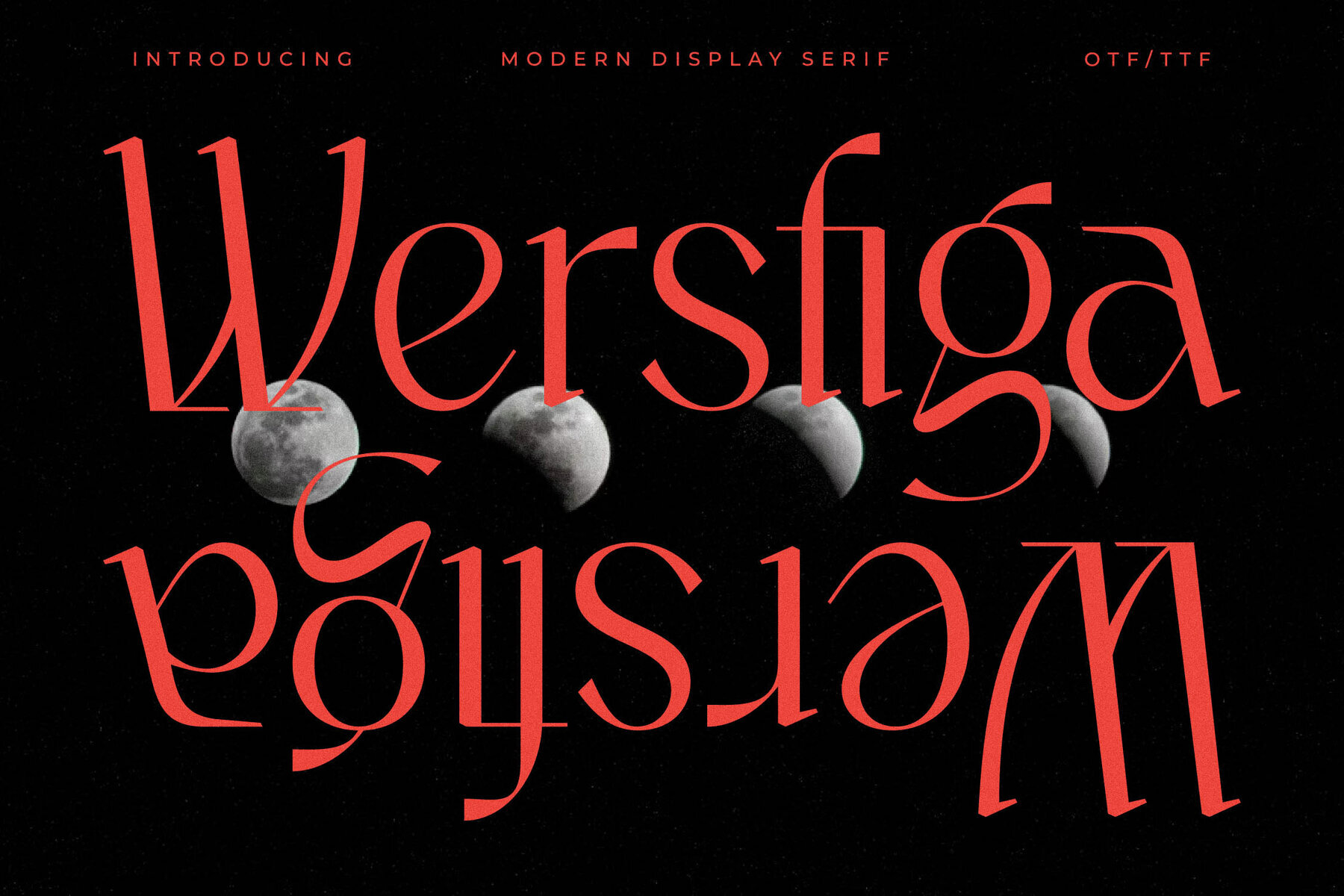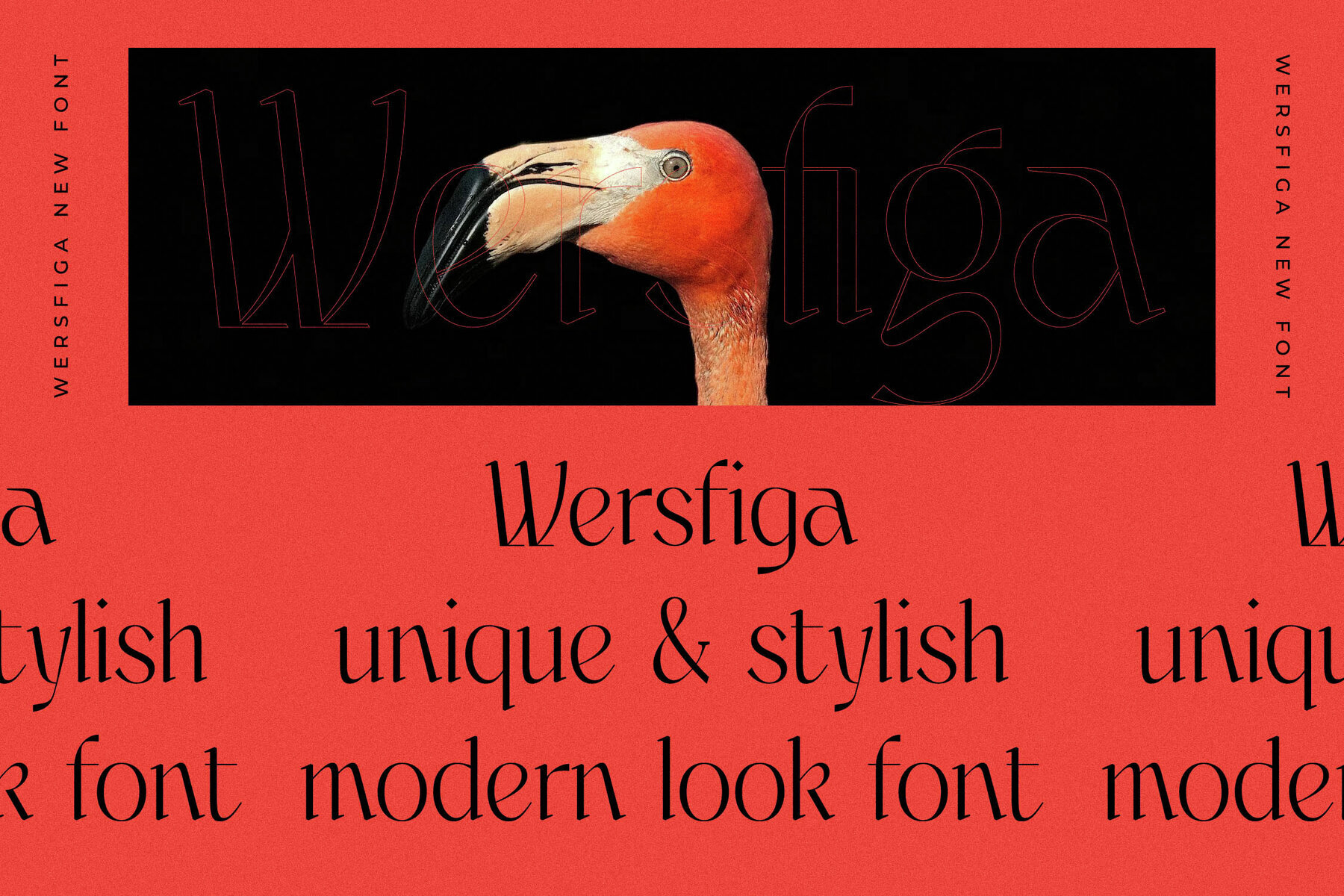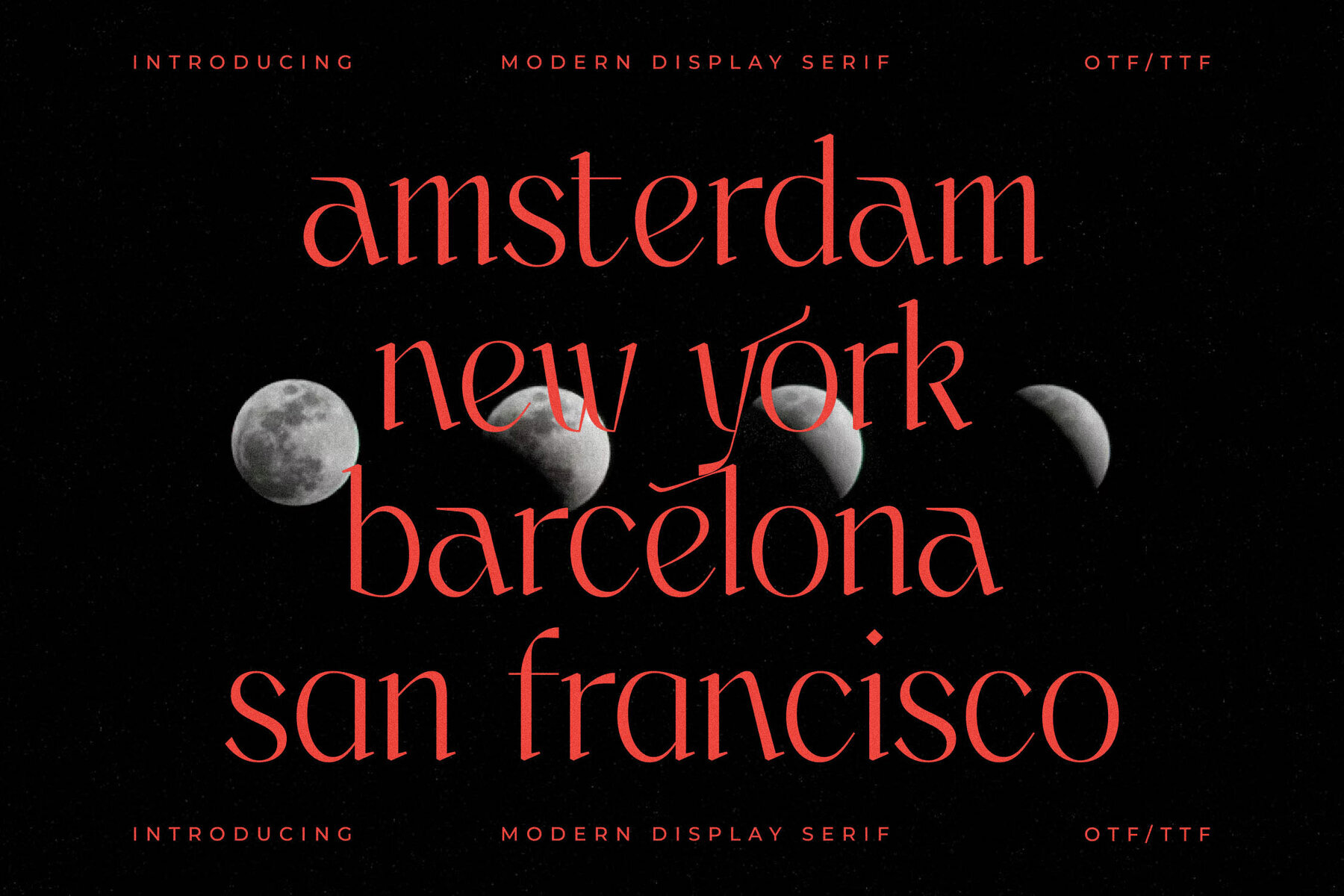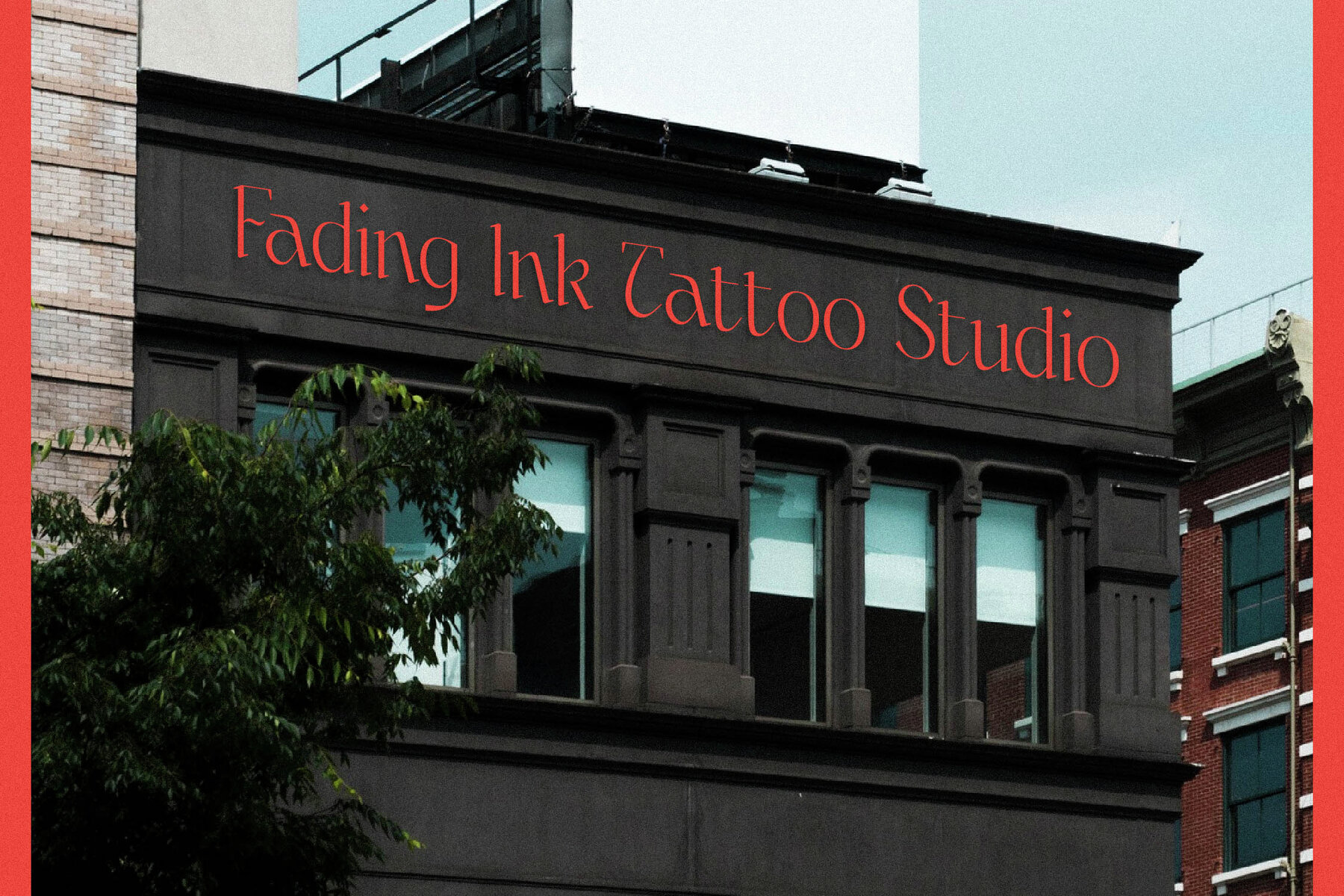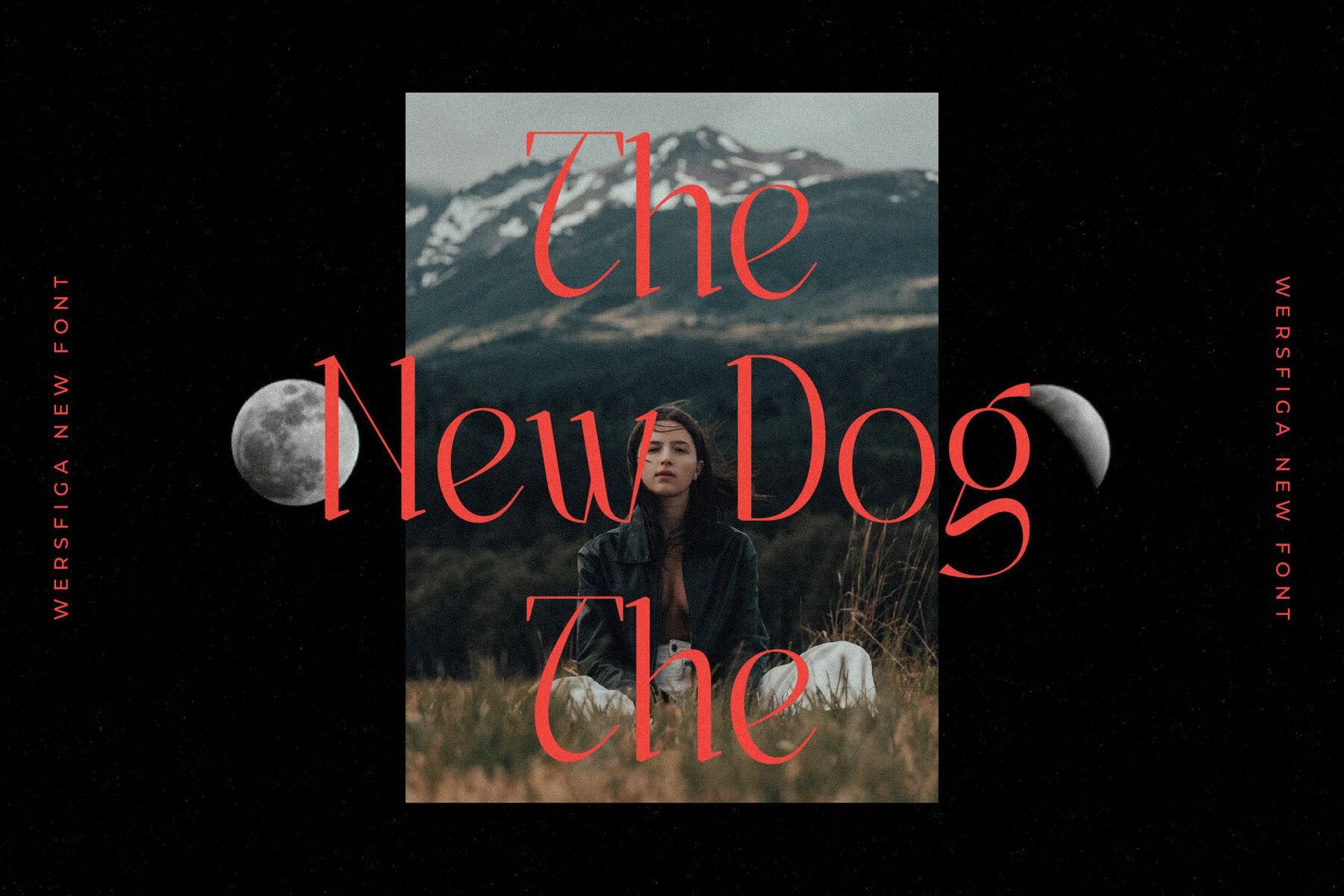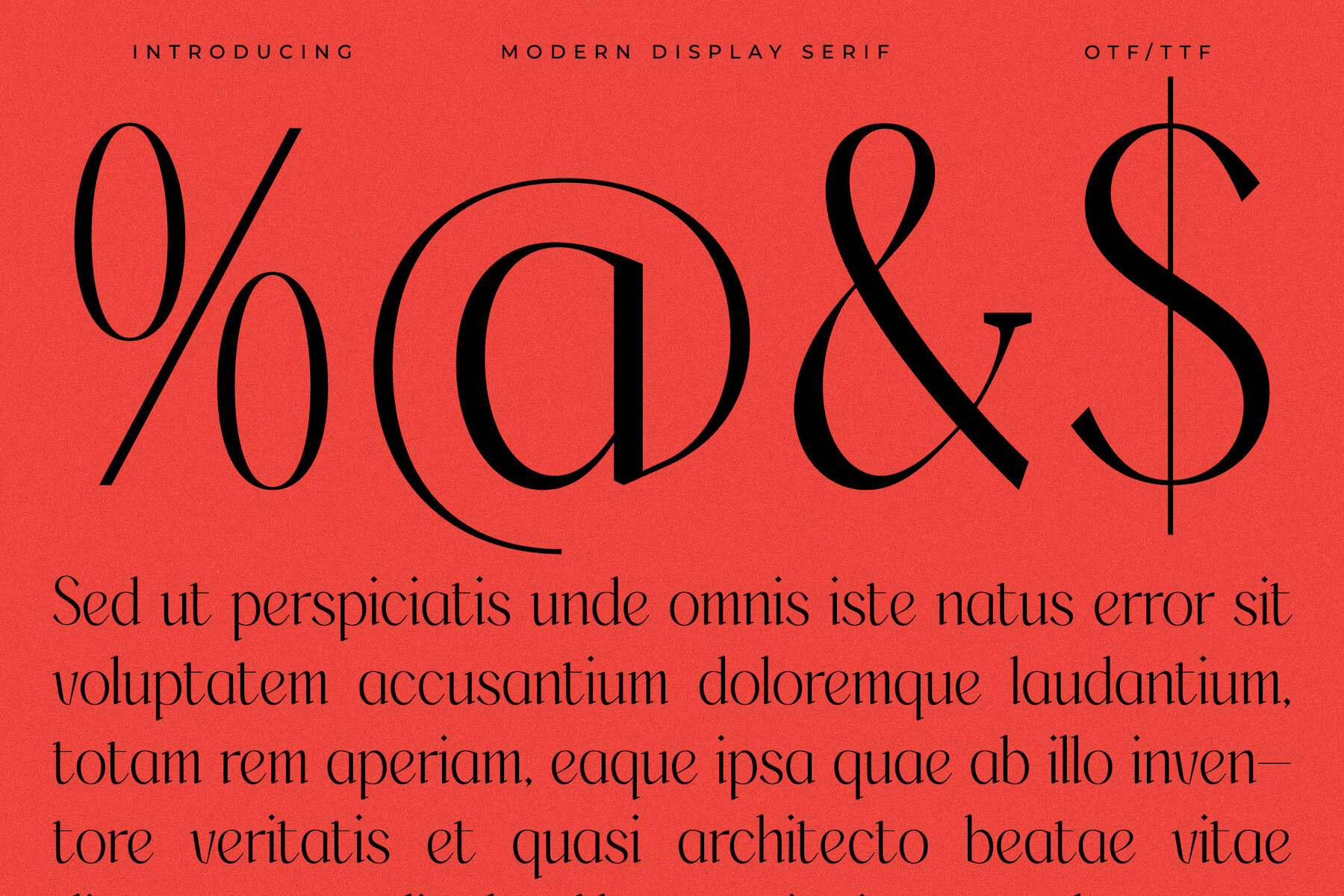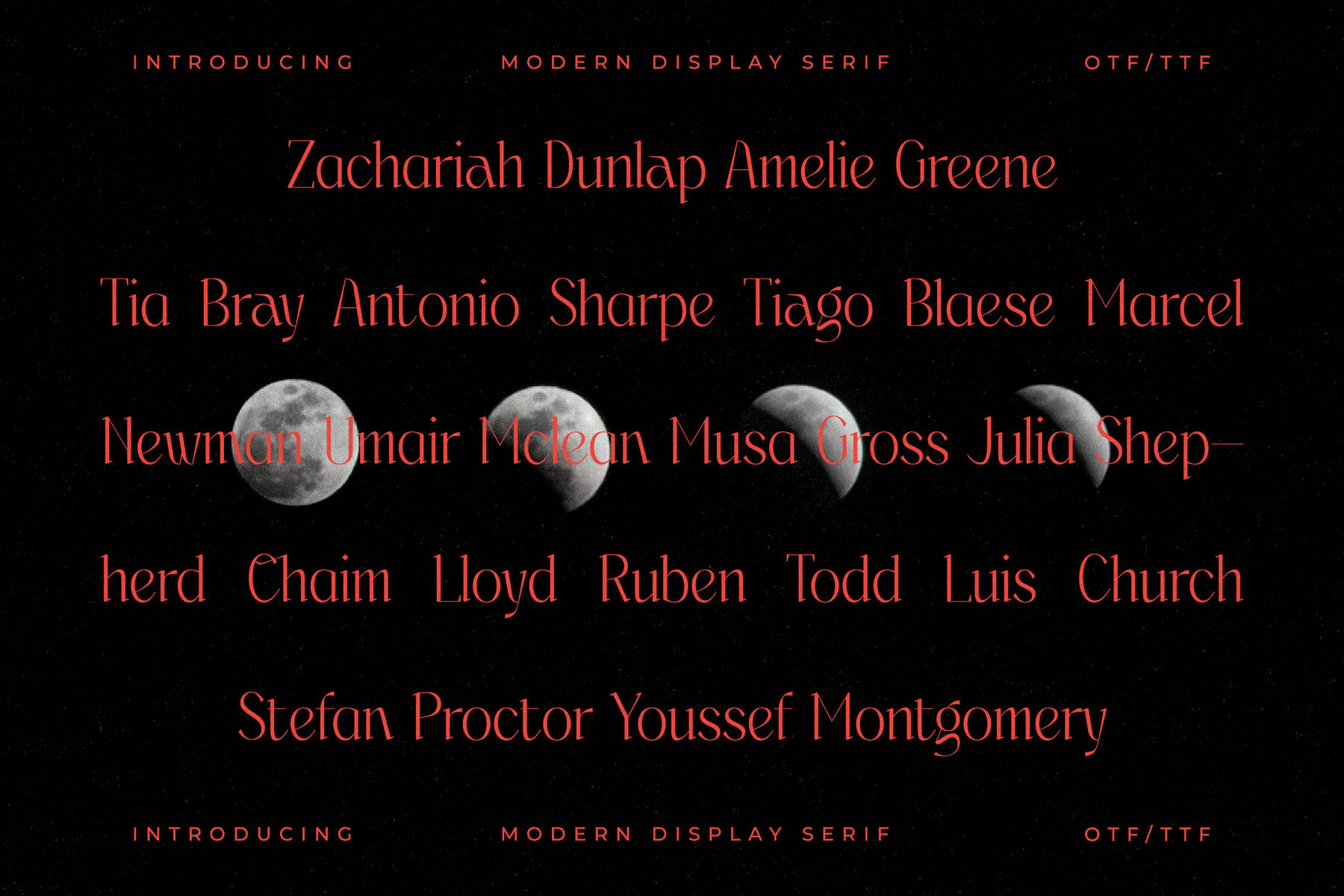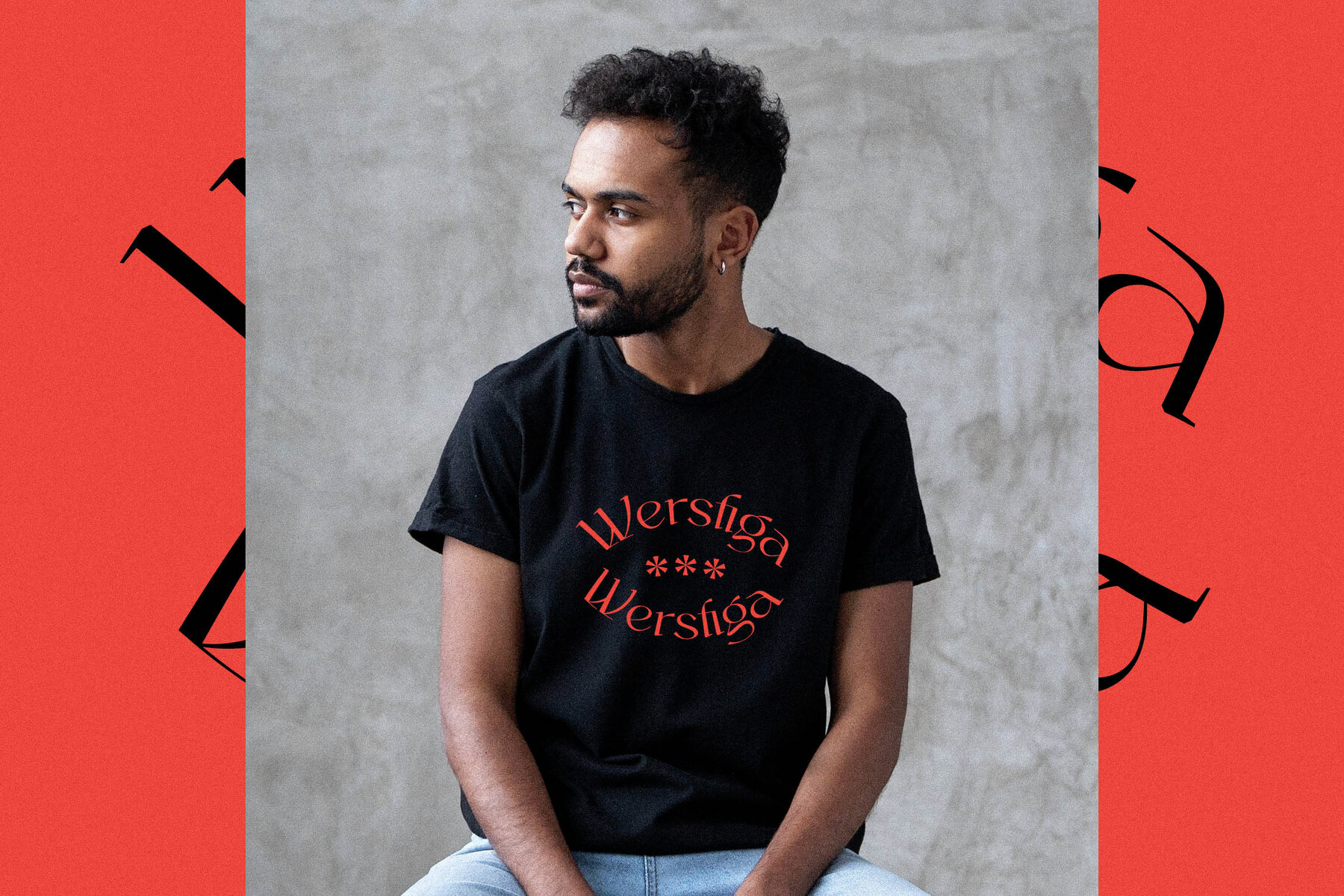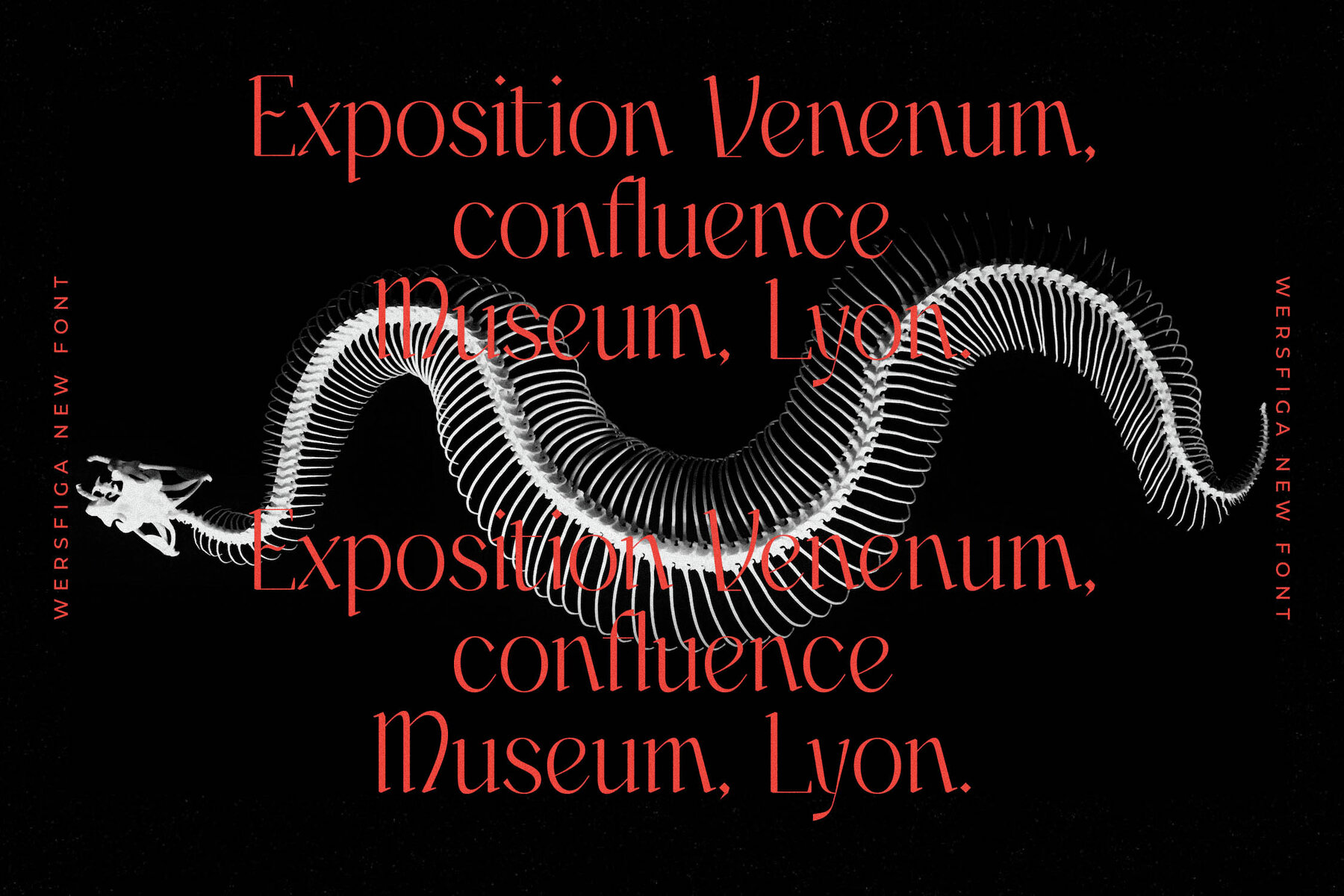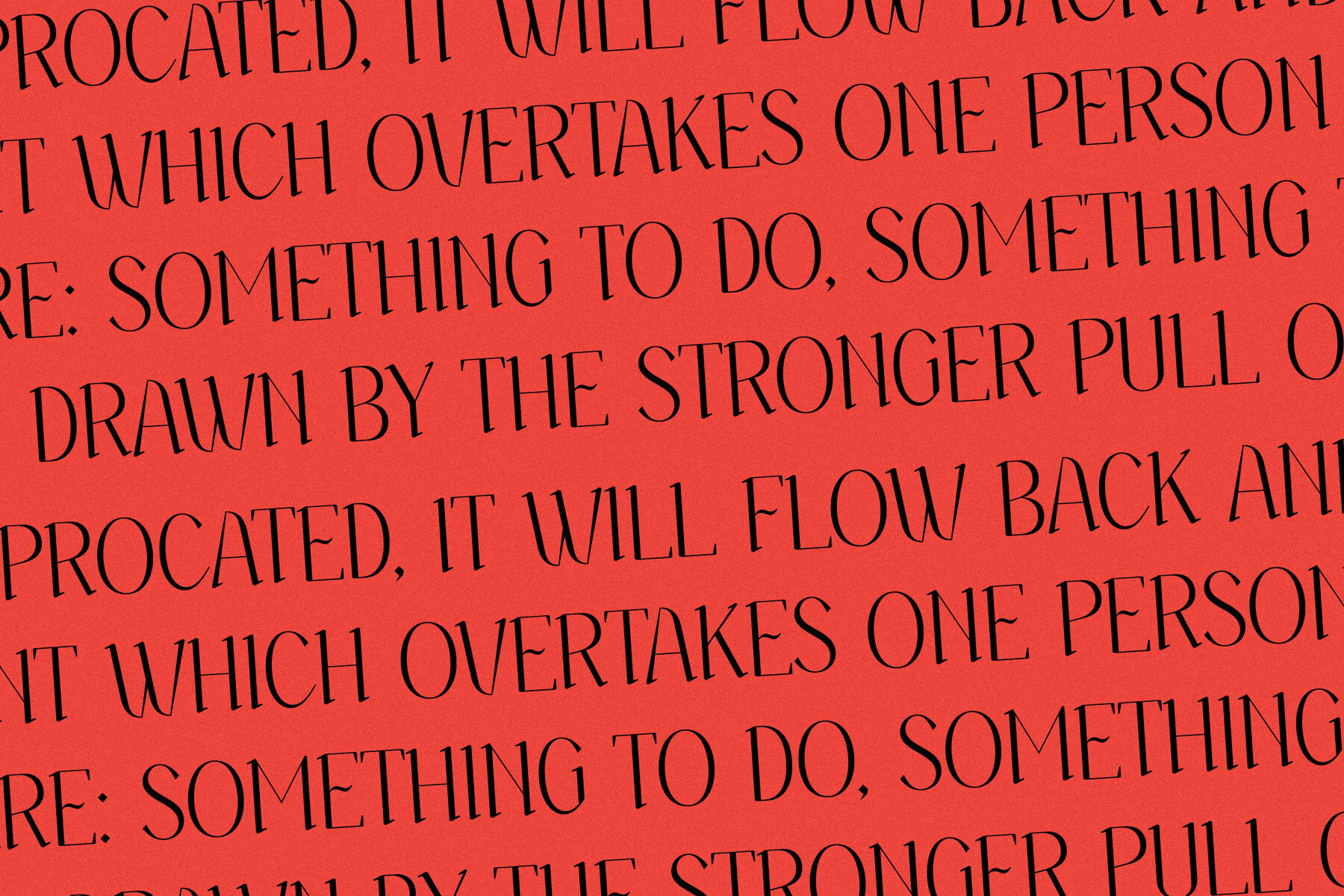
Wersfiga Font
Introducing the Wersfiga Typeface, a masterpiece by Storytype Studio. This serif typeface boasts a contemporary yet timeless style that effortlessly elevates any design. Whether you're crafting a luxurious logo, designing a book or movie title, or creating striking fashion branding, Wersfiga adds a touch of elegance and sophistication to every project.Wersfiga Typeface
Features of Wersfiga